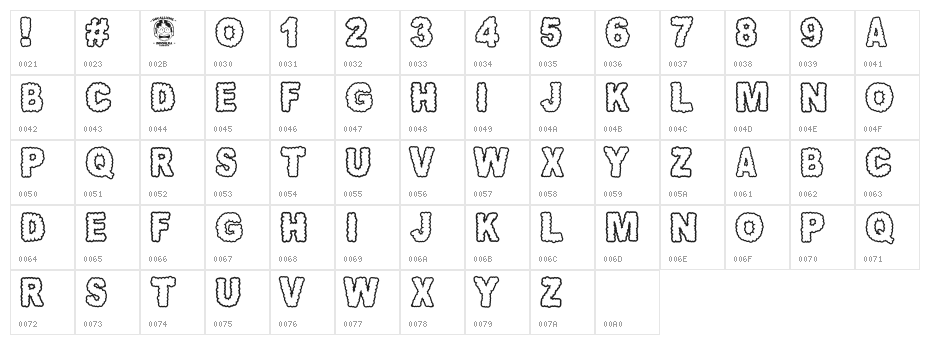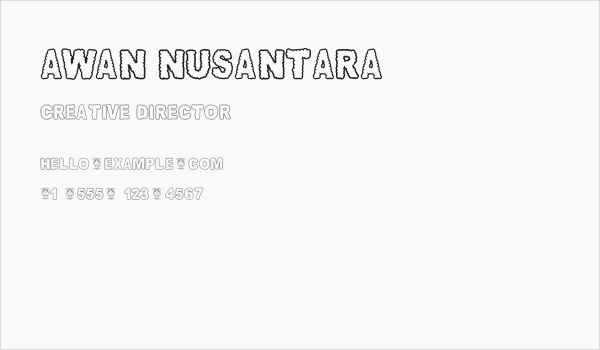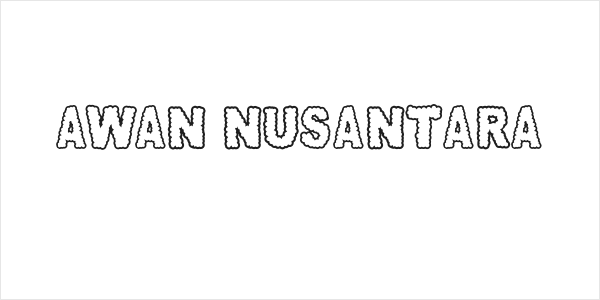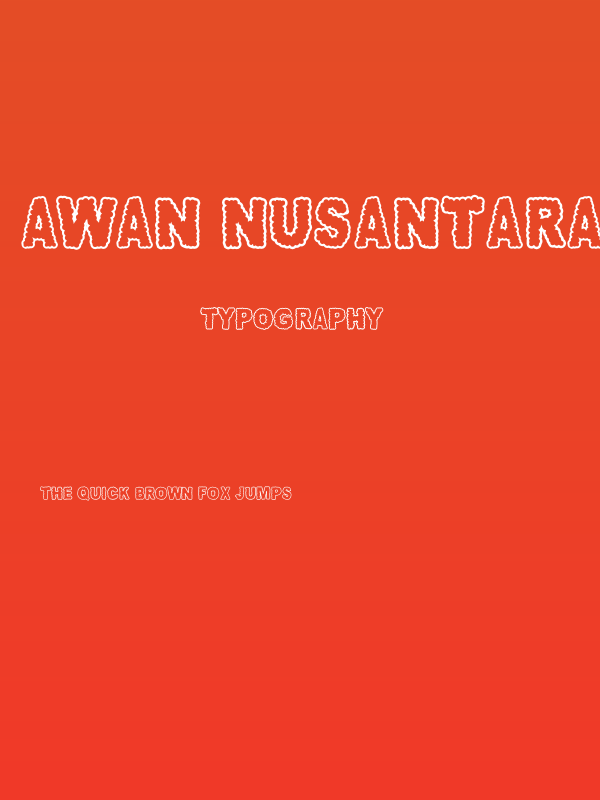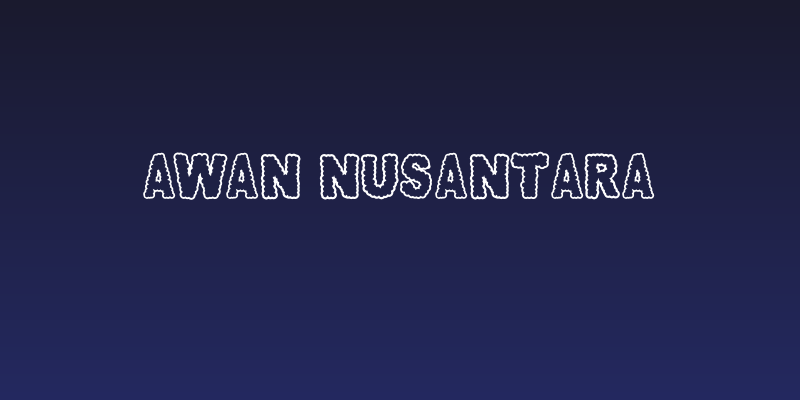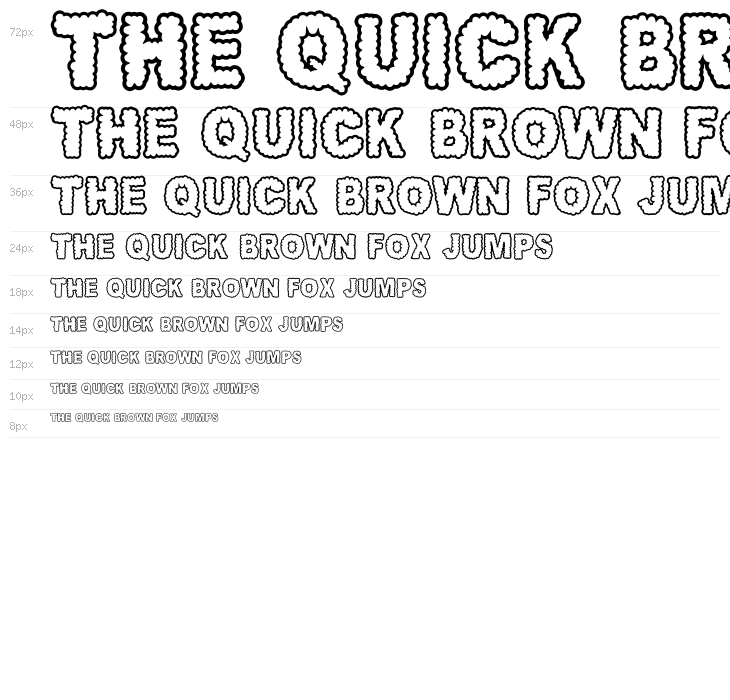
AWAN NUSANTARA Font
AWAN NUSANTARA Description
This font features a playful and whimsical design, characterized by its cloud-like, fluffy outlines that give each character a soft and approachable appearance. The letters are bold and rounded, with a consistent thickness throughout, creating a uniform and cohesive look. The style is reminiscent of cartoon or comic book aesthetics, making it ideal for projects that require a fun and lighthearted touch. The numbers and special characters follow the same design principles, ensuring a harmonious overall appearance.
| Proposed Projects | Ideal for children's books, playful branding, party invitations, and comic-style graphics. |